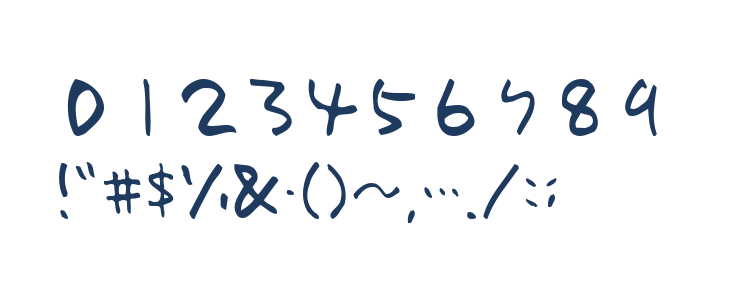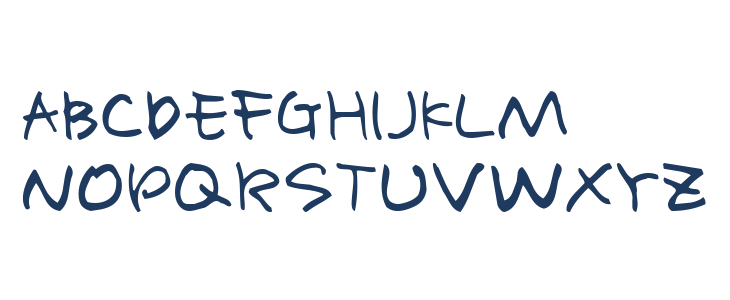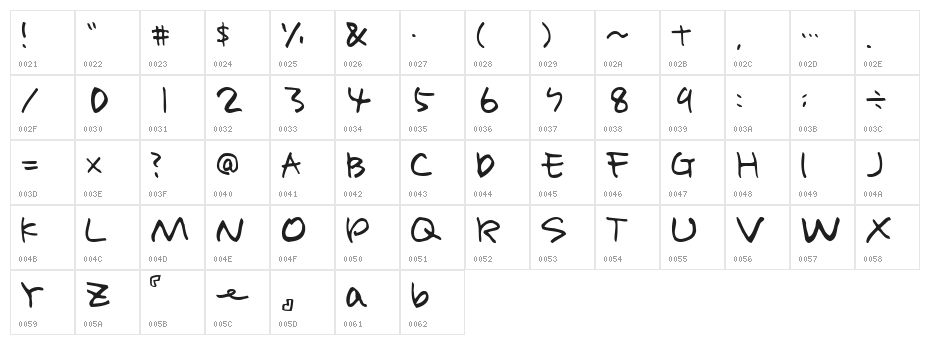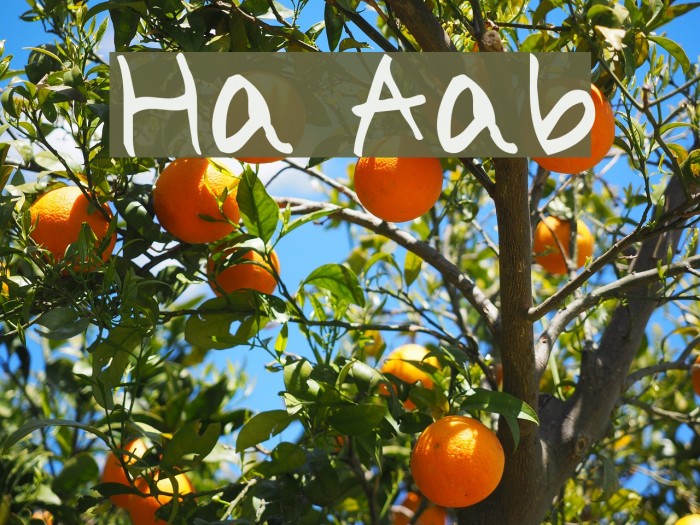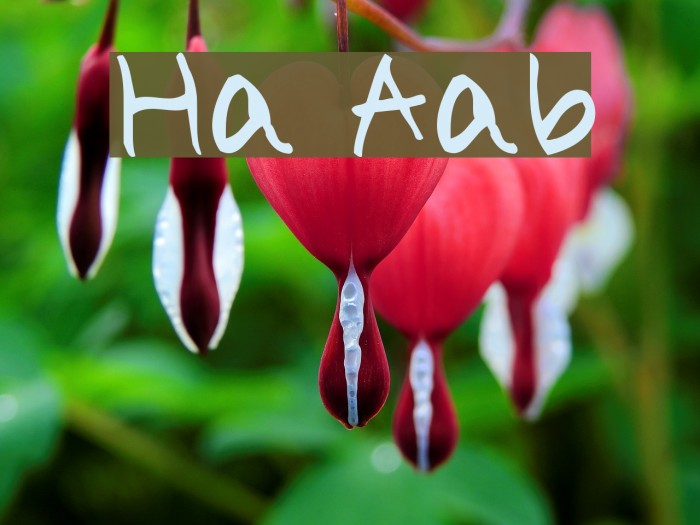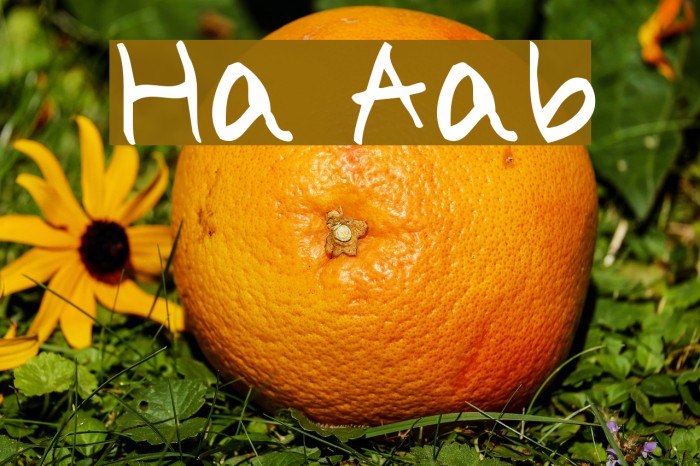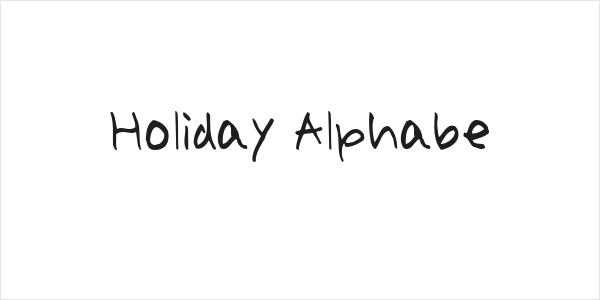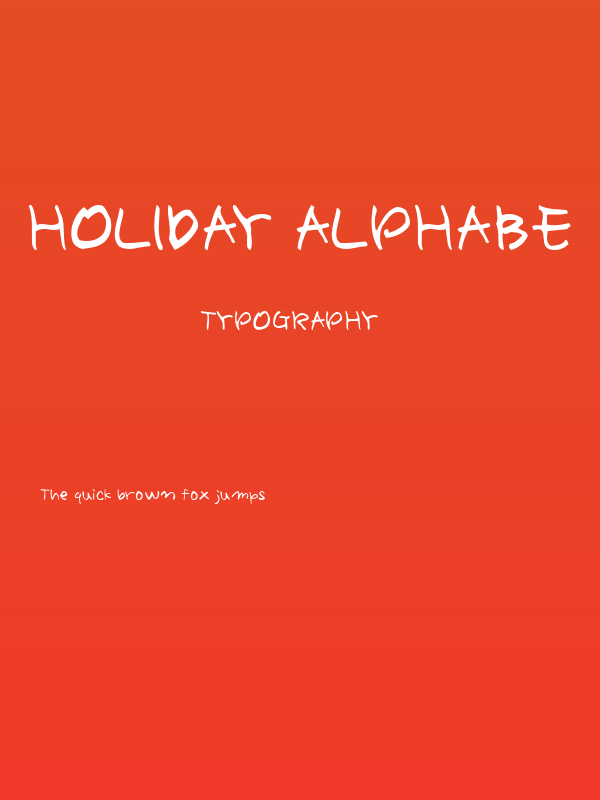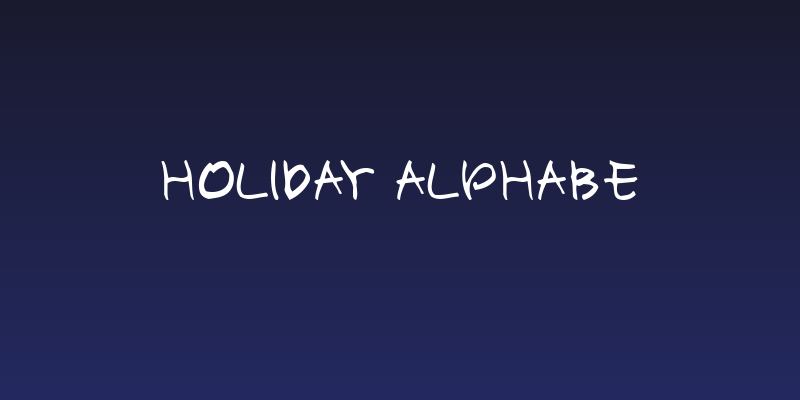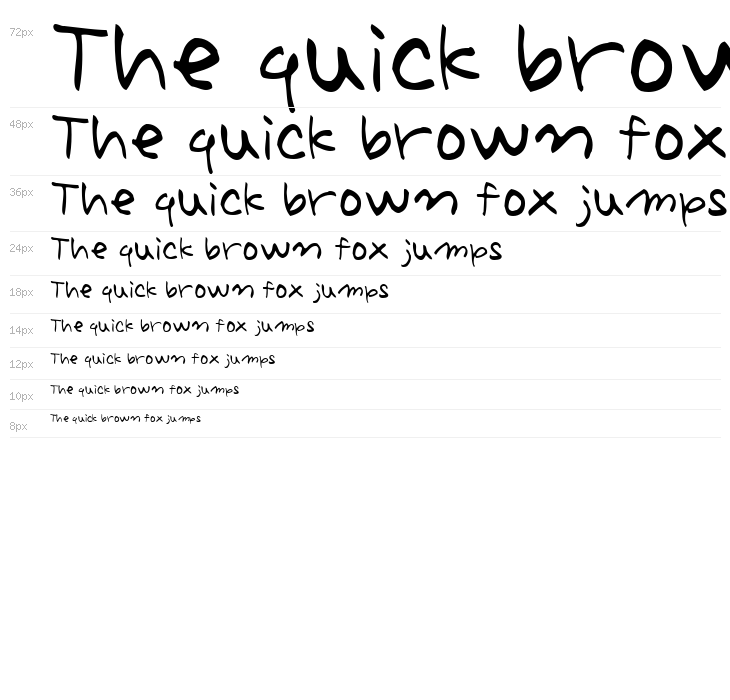
Holiday Alphabe Font
Holiday Alphabe Description
This playful and casual font features a handwritten style that exudes a sense of fun and informality. The letters are slightly irregular, with varying stroke widths that give it a lively and dynamic appearance. The uppercase and lowercase characters maintain a consistent flow, while the numerals and special characters complement the overall aesthetic. This font is perfect for projects that require a personal touch, such as greeting cards, invitations, or playful branding materials. Its unique style makes it stand out, adding a whimsical charm to any design.
| Proposed Projects | Ideal for greeting cards, invitations, playful branding, and personal projects. |